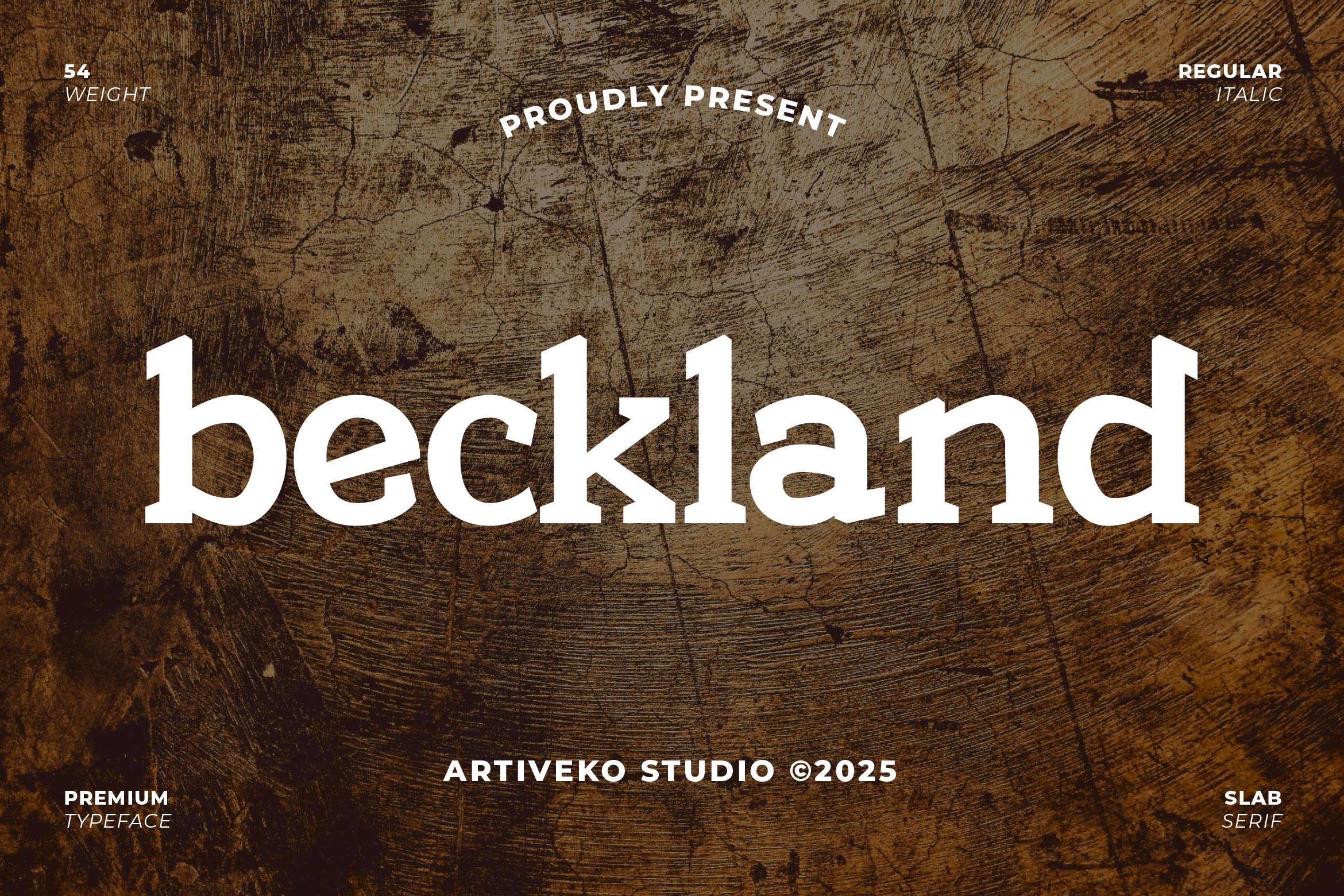
- Beckland Vintage Serif Font Family
Beckland is a beautifully crafted vintage serif font that brings timeless character and nostalgic elegance to your designs. Featuring bold strokes, sturdy serifs, and authentic old-style letterforms, Beckland is ideal for retro branding, poster headlines, whiskey labels, signage, apparel, and classic editorial layouts.
Its vintage-inspired details evoke a sense of heritage and craftsmanship while remaining highly readable for both print and digital designs. Perfect for logos, packaging, and advertising projects that need a strong, authentic, and memorable presence.
The font includes uppercase and lowercase letters, numerals, punctuation, multilingual support, ligatures, and stylistic alternates for enhanced customization.
Capture the essence of tradition and old-world charm with Beckland — the vintage serif font that combines bold strength with timeless elegance.